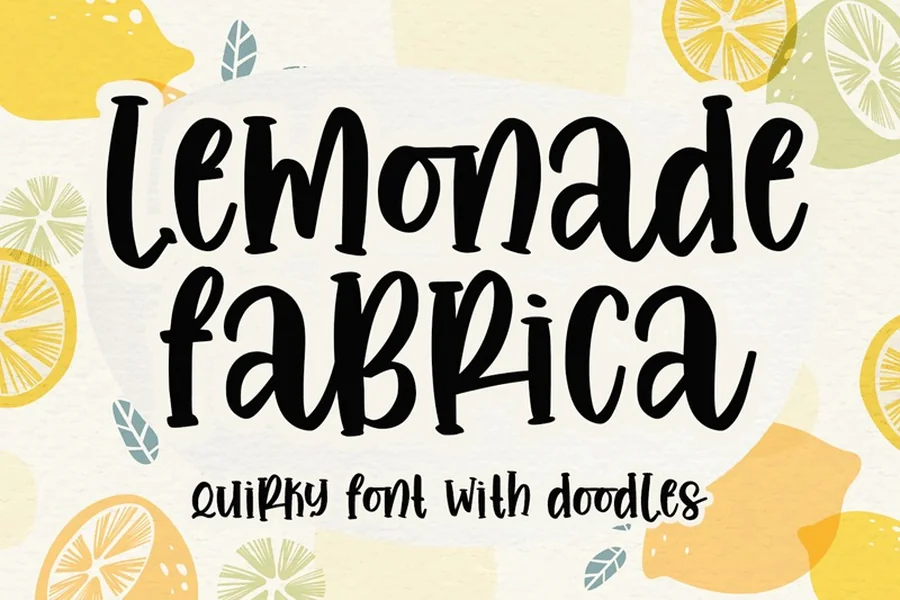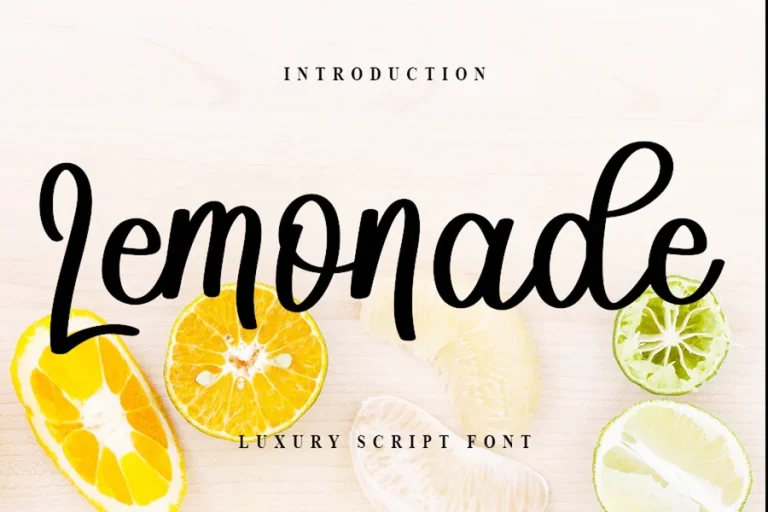
Lemonade Font Style Guide for Creative Design Lovers
Lemonade font is a type of font that gives a new touch to any design, being happy and playful. It is light and easy to handle, and it is effective with the brands that desire to be warm and welcoming. This paper is going to discuss the beauty of lemonade font and its application in creative applications. You will also get tips and font name ideas that can help you with your next project.
What Makes Lemonade Font Special
It seems like lemonade font is alive and luminous. It is frequently steeped in gentle curves and smooth lines that are individually crafted and intimate. This design style develops a casual atmosphere that suits fun brands and casual designs. Lemonade font is a favourite of many designers since it is a font of youthful and honesty.
Lemonade font is readable and at the same time feels like a game. It does not appear hard or solemn. It gives a warm touch to poster packaging and the online content. This is suitable with small firms and other creative projects that prefer a friendly touch.
Lemonade font used by designers is usually used in the summer theme lifestyle brands and social media posts. It assists in making one feel happy and comfortable. It is easy to make people feel positive emotions when they see it.
Where Lemonade Font Works Best
Lemonade typeface suits most of design environments. It is an ideal way of branding cafes bakeries and handmade shops. It is also very attractive on product labels and graphics on social media.
Lemonade font is used by many creators in greetings card and invitations. The delicate fashion is charming and warm. It is also effective with such children-related contents and playful campaigns.
Lemonade font is used by web designers as headings or highlights. It does not interfere with readability by making it un-personalized. It is most effective with a plain simple font.
How to Use Lemonade Font in Design
Fonts The lemonade fonts would make your design look well balanced. It is suitable with titles logos and short phrases. It should not be used on long paragraphs because it is more decorative.
Use neutral fonts to make the font pair lemonade look clean. Light pastels also can be good and also compliments the friendly tone. Spacing is noteworthy as it allows letters space to breathe.
Intentional lemonade font can be applied to the design to make it high. It does not need to strain too hard in making your work look friendly and creative.
Popular Styles Inspired by Lemonade Font
Many designers look for similar styles that match the charm of lemonade font. These fonts often share rounded shapes and playful energy. Below are more than fifty font name ideas that match this vibe.
These names reflect the playful spirit found in lemonade font and can help inspire your creative projects.
Why Designers Love Lemonade Font
Lemonade font is close to the heart of the designers since it is human and amiable. It establishes contact with the viewer. It also contributes to the brands becoming more friendly and inviting.
This font type is contemporary without being chilly. It feels casual yet polished. The balance gets it applicable in numerous design applications.
Lemonade font is also favored by designers because it is versatile. It is easy to work both in digital and print designs. It is also fit to be adapted to various color schemes and layouts.
Final Thought
Lemonade font makes life easy and beautiful in the design. It assists brands to narrate amicable tales and reach individuals in an emotional context. When used wisely it has the potential of making an otherwise plain design into one that is memorable. In case you desire a font that is refreshing and friendly lemonade font is a good option.
What is lemonade font used for?
Lemonade font is used for branding social media posts packaging and creative designs that need a friendly look
Is lemonade font good for logos?
Yes it works well for logos especially for lifestyle and small businesses
Can lemonade font be used for websites?
Yes it works well for headings and accents on websites
Is lemonade font easy to read?
Yes it is readable when used in short text and titles
What styles go well with lemonade font?
Clean sans serif fonts and soft colors pair well with lemonade font